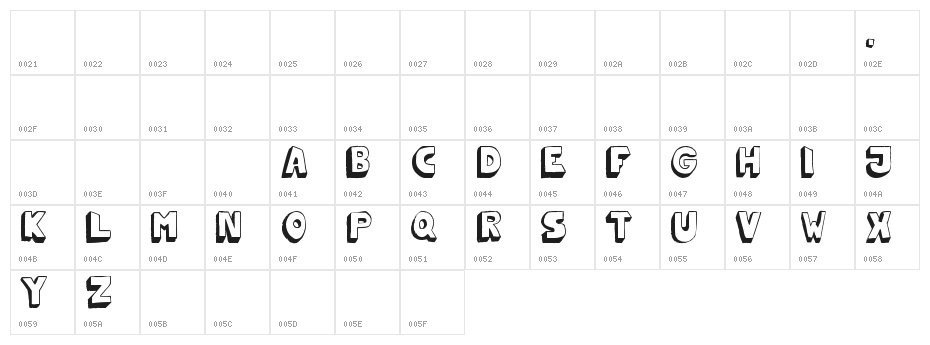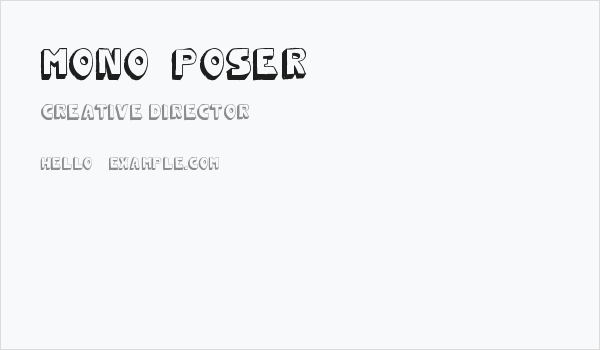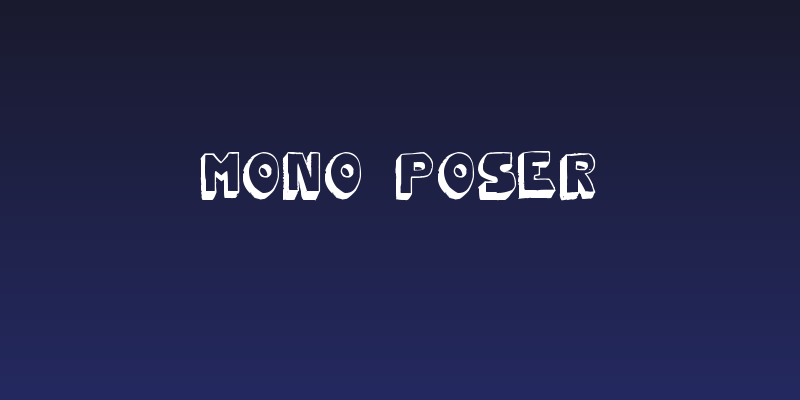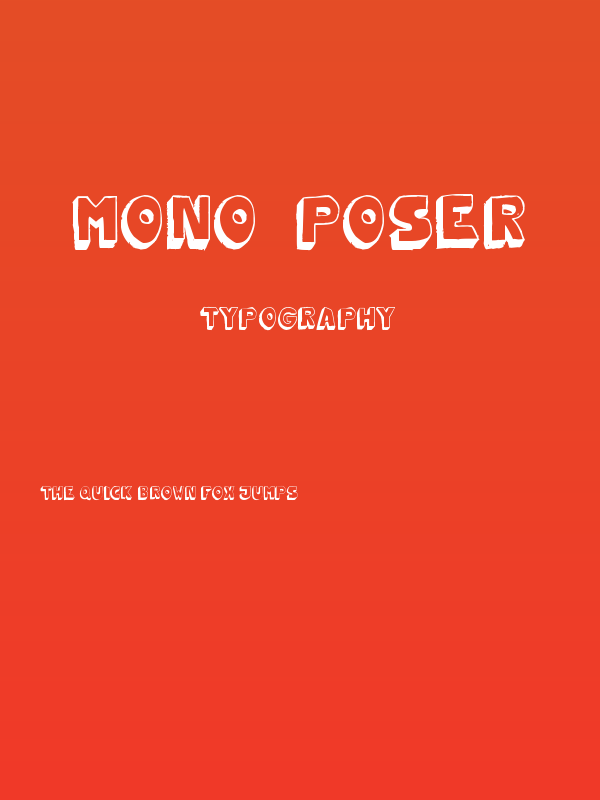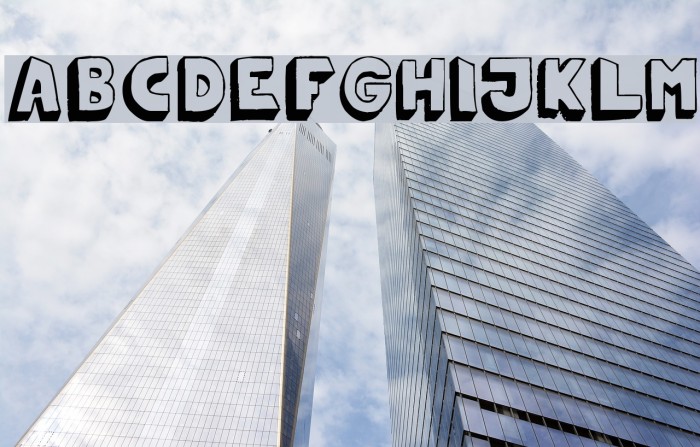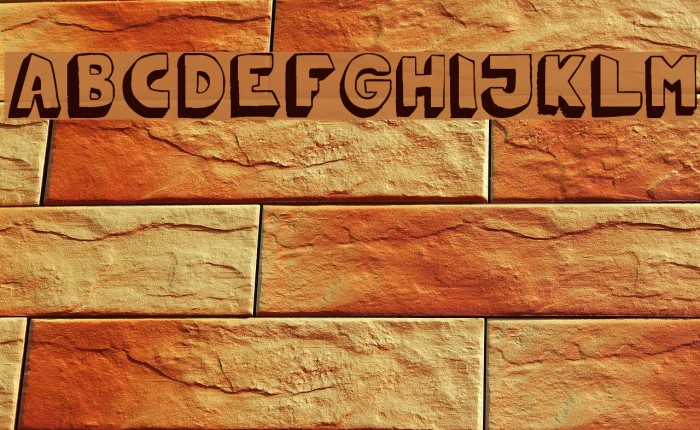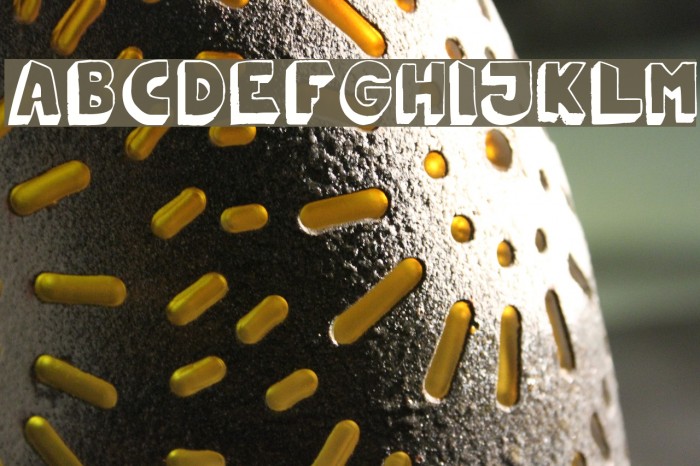
Mono2poser Font
Mono2poser Description
This font features a bold, three-dimensional style with a playful and dynamic appearance. Each character is designed with a shadow effect, giving it a sense of depth and movement. The letters are uppercase, with a consistent thickness and a slightly rounded edge, adding to the friendly and approachable feel. The boldness of the characters makes them stand out, while the shadow effect adds a layer of complexity and interest. This font is ideal for creating eye-catching designs that require a touch of fun and creativity.
| Overall Style | Playful, Dynamic |
| Proposed Projects | Perfect for comic book titles, children's book covers, playful branding, and posters. |